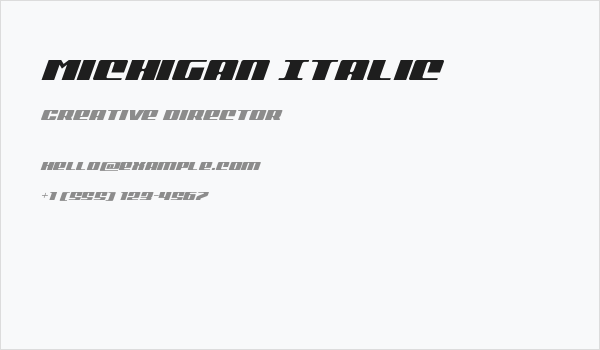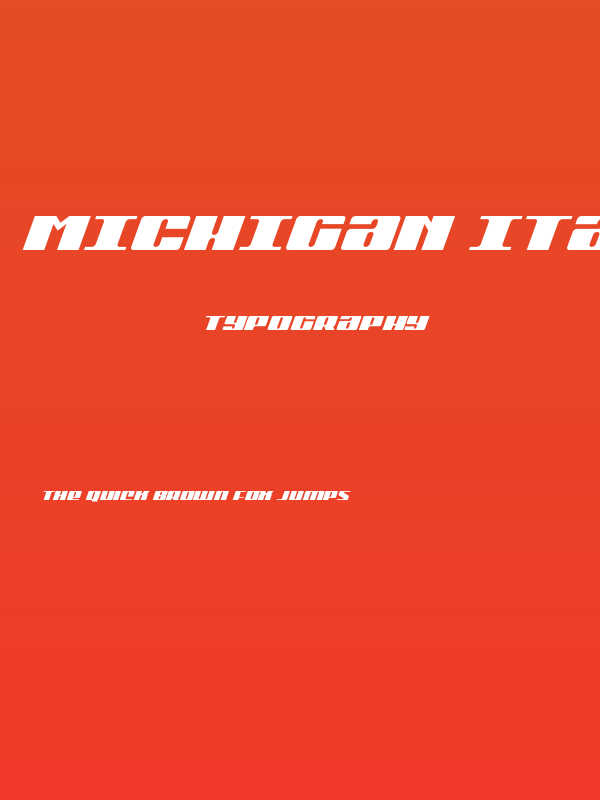
Michigan Italic Font
Michigan Italic Description
This font features a bold, italicized style with a strong, dynamic presence. The characters are slanted, giving a sense of motion and speed, which is enhanced by the thick, blocky strokes. The uppercase and lowercase letters maintain a consistent width, contributing to a uniform appearance. The numbers and special characters follow the same bold and italicized design, ensuring cohesion across all elements. This font's robust and energetic look makes it suitable for attention-grabbing designs.
| Proposed Projects | Ideal for sports branding, automotive advertisements, dynamic posters, and any project requiring a bold, impactful typeface. |